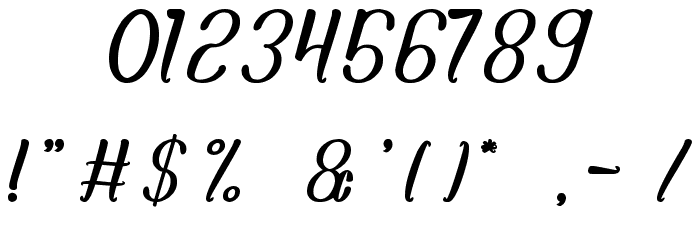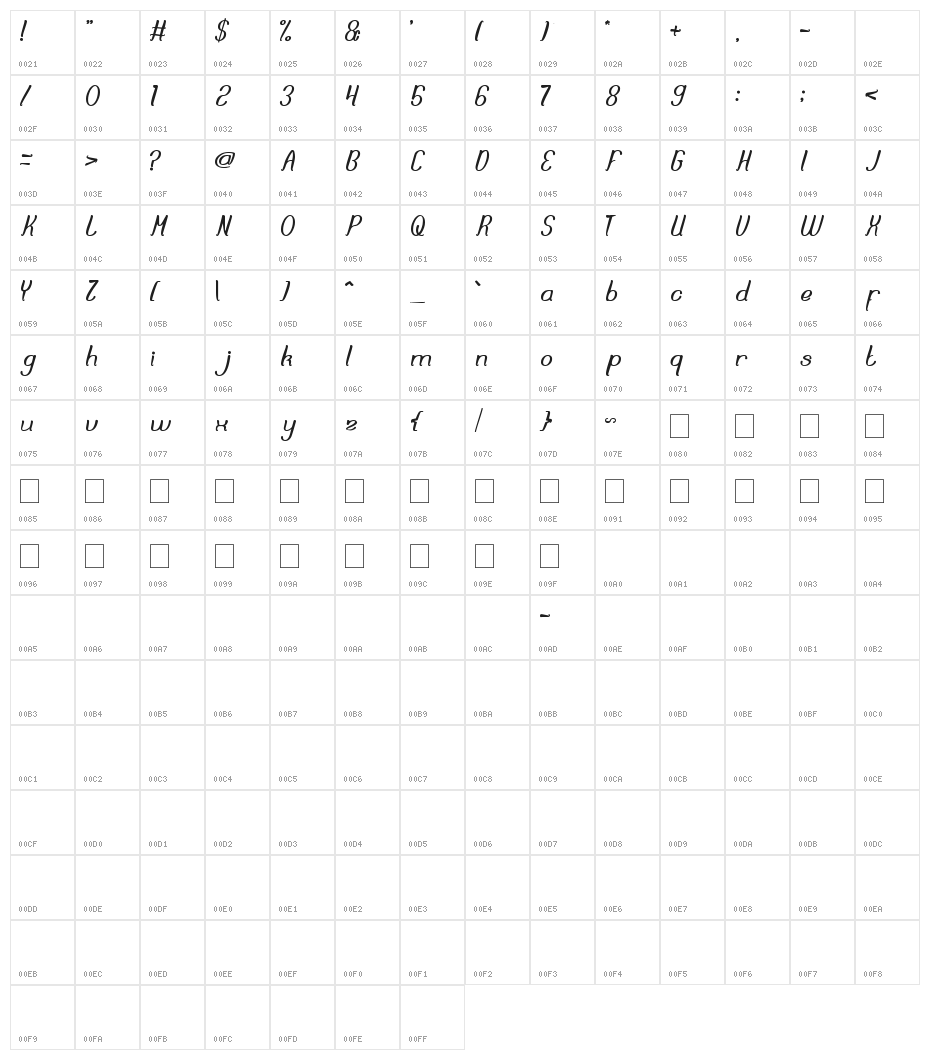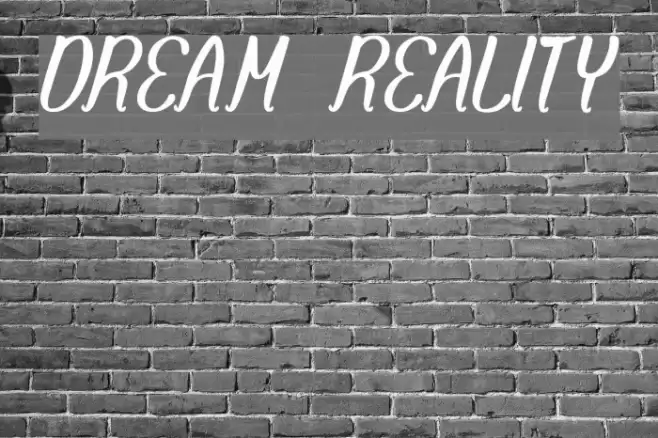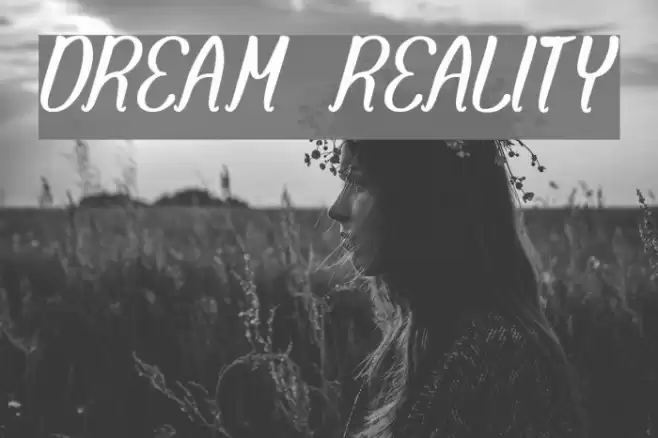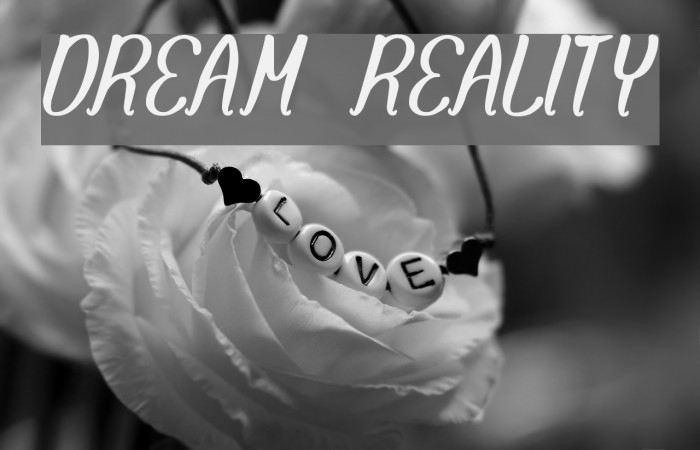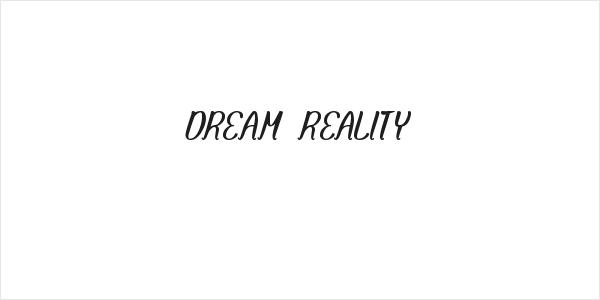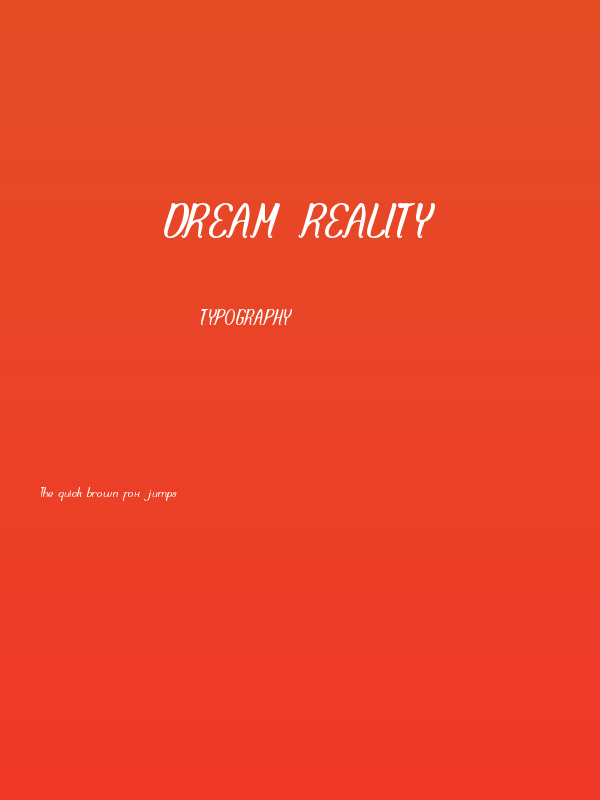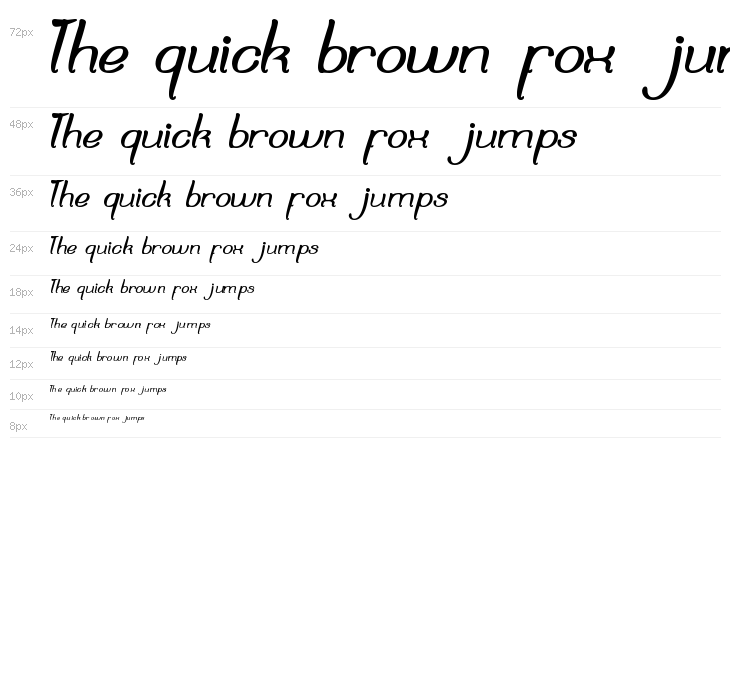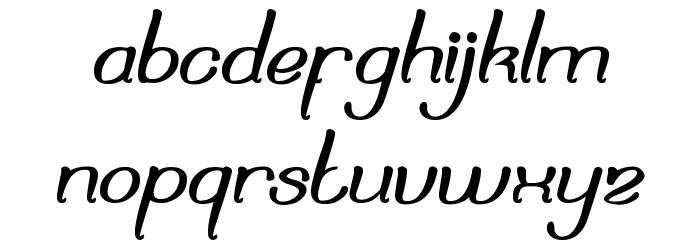
DREAM REALITY Font
DREAM REALITY Description
This font features a flowing, cursive style that exudes elegance and sophistication. The uppercase letters are tall and slightly slanted, with smooth curves and a consistent stroke width that gives them a graceful appearance. The lowercase letters maintain the same fluidity, with distinctive loops and swashes that add a touch of whimsy. The numerals are well-balanced, with rounded edges that complement the overall aesthetic. Special characters are thoughtfully designed to match the font's style, ensuring a cohesive look across all text elements. This font is ideal for projects that require a personal, handwritten touch, such as invitations, greeting cards, or branding materials. Its decorative nature makes it stand out, while its readability ensures it remains functional.